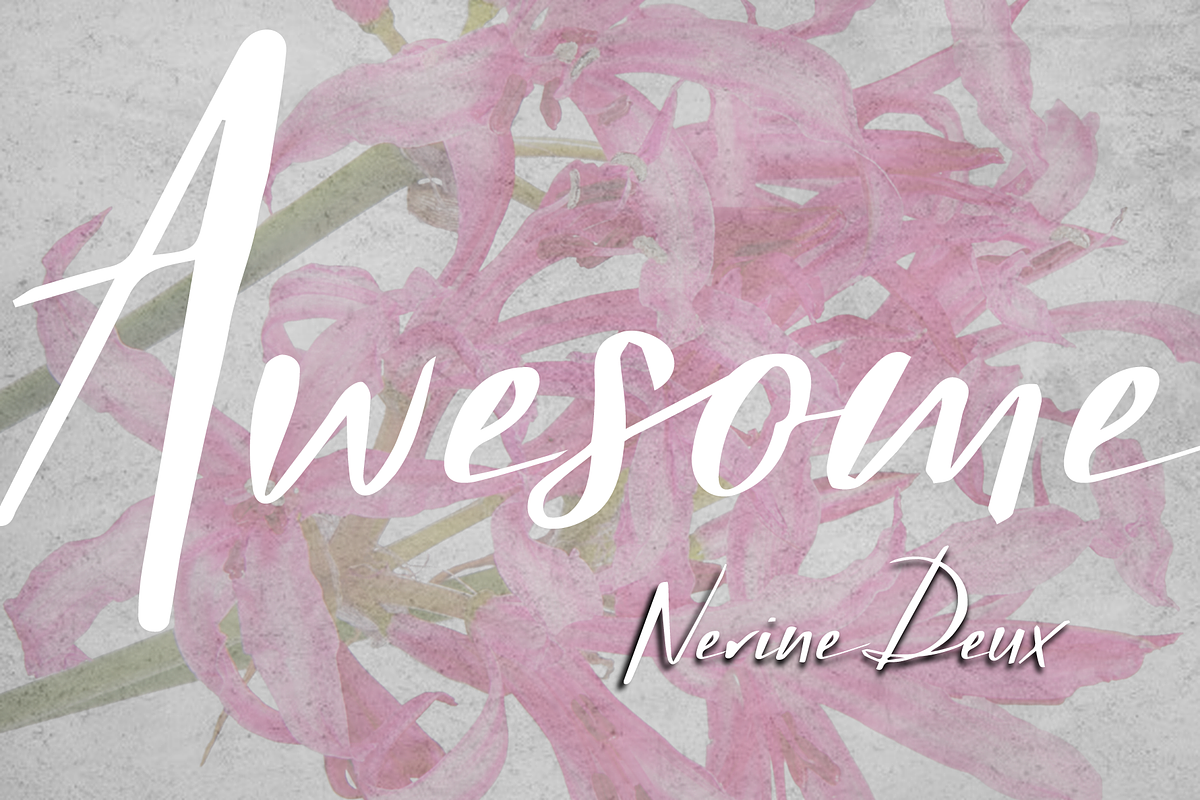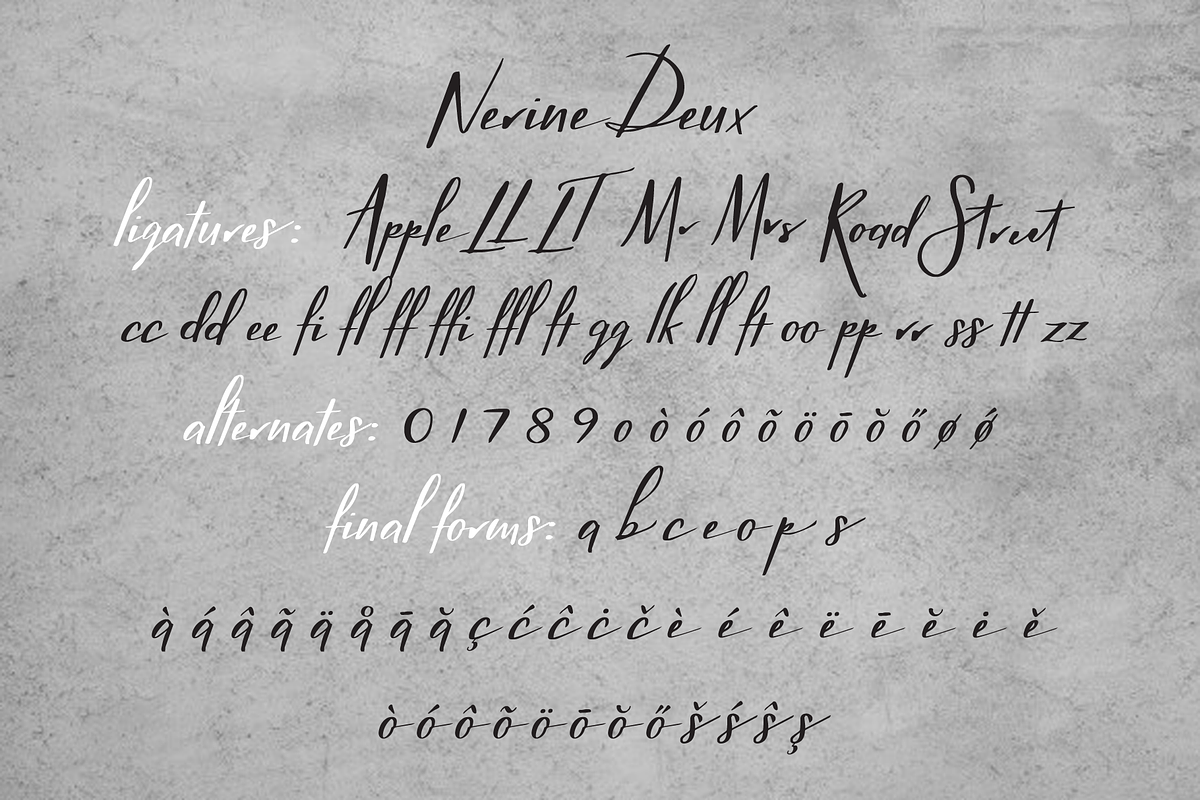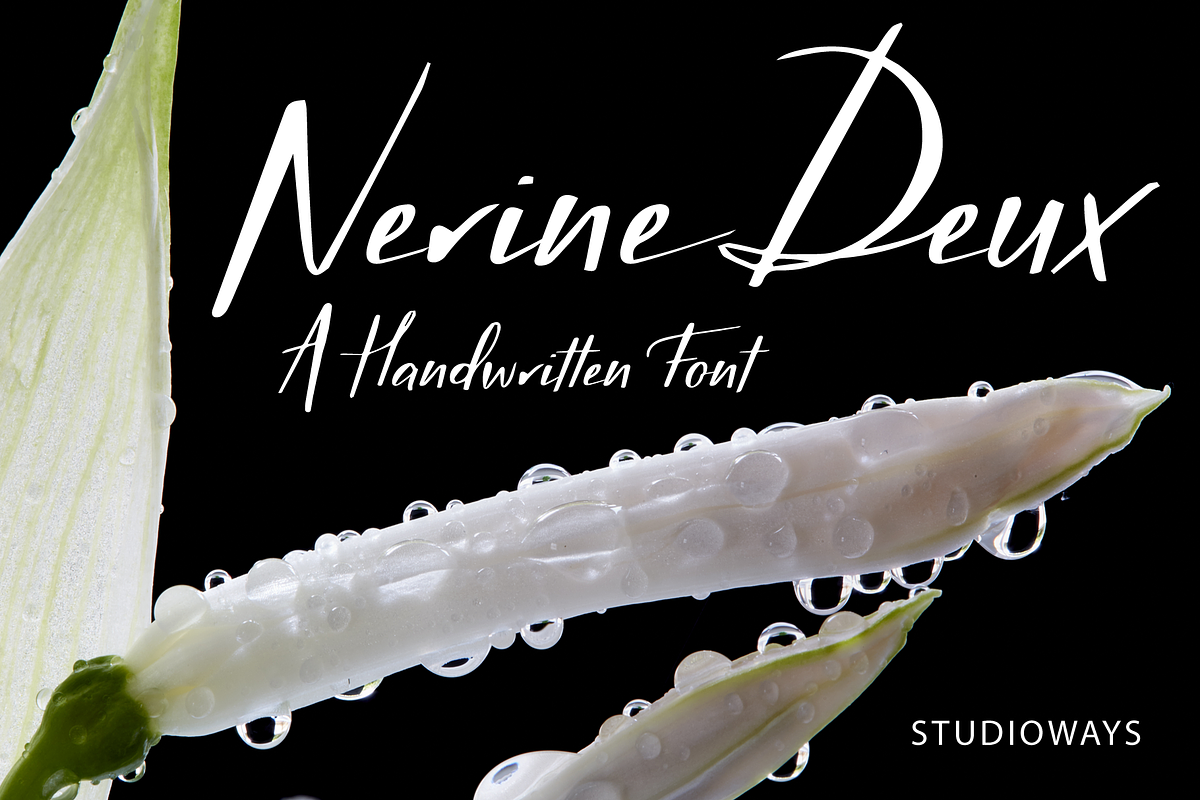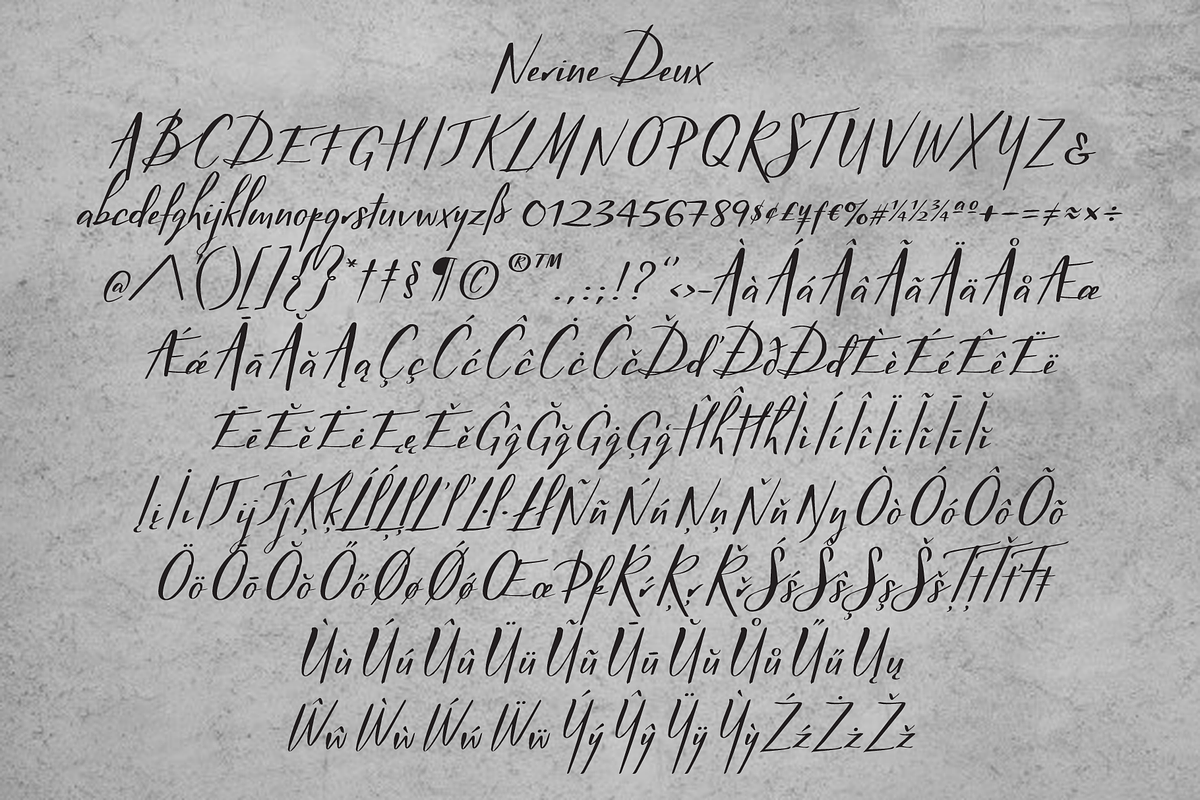
Nerine Deux
Nerine Deux is a modern handwritten font designed by hand lettering artist Eliza Gwendalyn. It was drawn completely by hand and then digitally perfected to bring you this unique script font. Nerine Deux is a light weight, semi-connecting brush script, seemingly stripped down when compared to it's cousin, Nerine. It is ideal for use in a wide range of projects, from branding & advertising to wedding stationery & birth announcements! It also pairs well with sans serif and serif typefaces!
Nerine Deux is packed with ligatures and some alternate letterforms that help text runs appear more natural. The OpenType ligature feature will automatically insert ligatures when certain glyph combinations are typed. Nerine Deux also features ordinals and fractions.
Nerine Deux supports the extended European character set, so language support is extensive. This is a single font package.